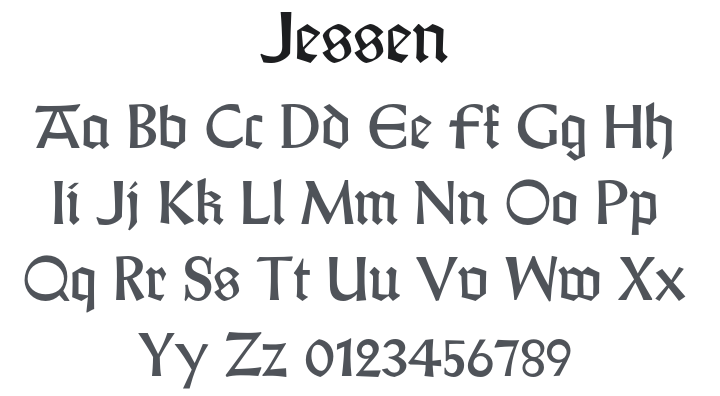
Jessen Font Family
About Jessen
Jessen, hybrid of gothic minuscules and roman capitals designed and cut without preliminary drawings in Offenbach am Main by Rudolf Koch for The Four Gospels. Printed at the Klingspor press in 1926 and published by Koch himself. Formerly named Bibel-Gotisch, the type was released as Jessen in several sizes by the Klingspor foundry in 1930. Type design workshop at ESAD •Valence, April 2016.